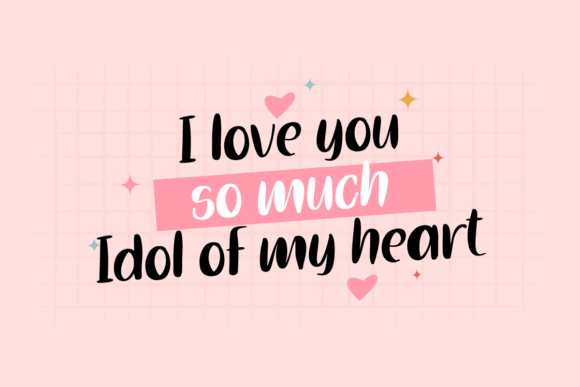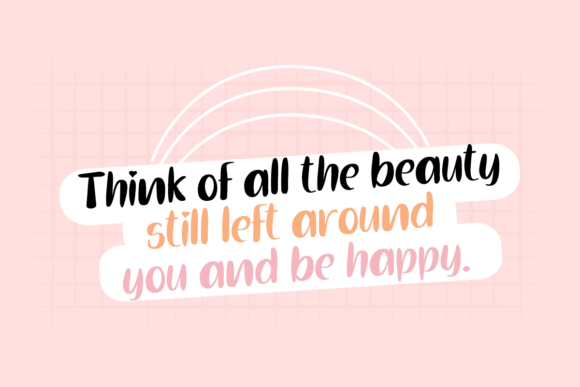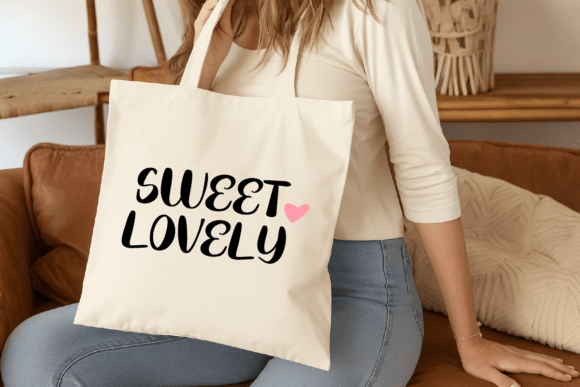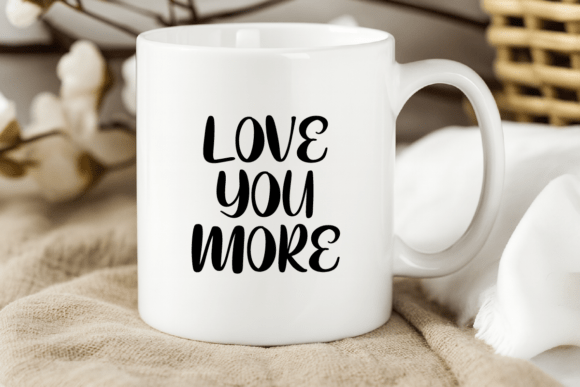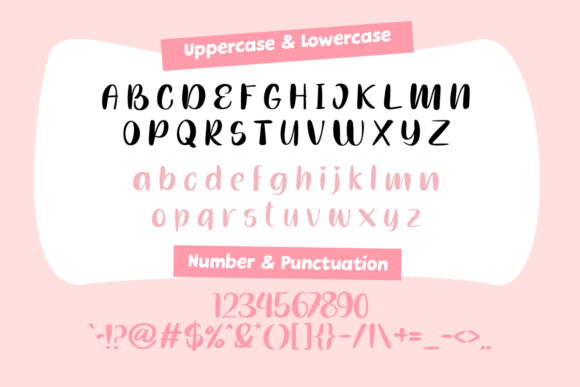
Introduction to Daisy Girly Font
Daisy Girly is a cute handwritten font with a playful, bouncy style that is perfect for girly, pastel, and kawaii‑themed designs.
Its rounded strokes and sweet details make it ideal for quotes, greeting cards, stickers, mugs, tote bags, and social media posts that need a friendly handwritten touch Daisy Girly stays readable even at smaller sizes, so it works beautifully for logos, branding, product packaging, invitations, and nursery or kids projects.
Key Features of Daisy Girly Font
Why Choose Daisy Girly Font?